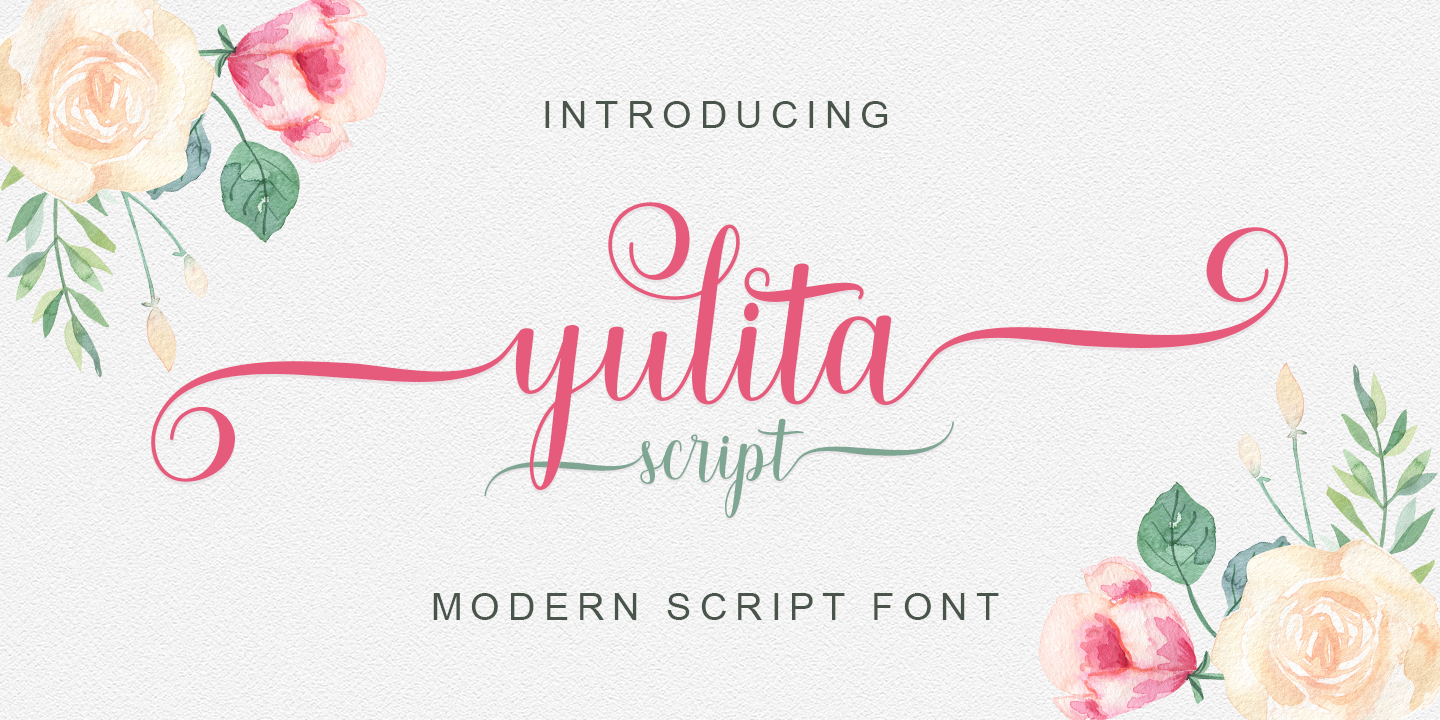
Yulita Script Font is ideal for wedding invitations, romantic greeting cards, elegant branding projects, luxury beauty campaigns, boutique fashion labels, sophisticated stationery design, feminine lifestyle marketing, delicate product packaging, calligraphy workshops, and enchanting creative applications. This graceful typeface excels in environments where elegance, romance, and feminine sophistication are essential for creating memorable emotional connections.
What makes Yulita Script Font exciting is its exquisite embodiment of feminine grace and romantic elegance through flowing script letterforms that capture the delicate beauty of hand-lettered calligraphy. The font features graceful curves, elegant flourishes, and sophisticated connecting strokes that convey refinement and timeless romantic appeal. This enchanting aesthetic makes it perfect for brands seeking to communicate femininity, elegance, and the intimate beauty of personal expression through typography.
Yulita Script Font family includes Regular, Bold, Light, Ornamental, Decorative, Flourished, Swash, and Elegant variants. Each style maintains the font's distinctive romantic character while offering different levels of decorative sophistication and feminine expression, enabling designers to create authentic script compositions that celebrate elegance and romantic beauty.
The Yulita Script Font Free Download provides designers with access to a premium script typeface that embodies the spirit of romantic elegance and feminine sophistication. This font's graceful aesthetic and delicate qualities make it particularly valuable for wedding professionals, beauty brands, and luxury organizations seeking to establish genuine connections with audiences who appreciate feminine beauty and romantic elegance.
Creative professionals appreciate the font's ability to instantly communicate romance, sophistication, and feminine charm. The letterforms' flowing characteristics and elegant details create emotional warmth that standard fonts cannot achieve, making it essential for projects requiring distinctive romantic personality and sophisticated feminine appeal.
When working with Yulita Script Font, designers can create compelling visual narratives that resonate with romantic audiences and elegance-conscious consumers. The font's graceful character makes it especially effective for brands in weddings, beauty, fashion, and luxury services where authentic romantic appeal and feminine sophistication are crucial for emotional connection.
For digital applications, Yulita Script Font maintains its distinctive script qualities across different platforms while ensuring readability in modern romantic contexts. Its optimized character spacing preserves the flowing elegance essential for authentic script appeal.
Design studios consistently select Yulita Script Font for projects requiring genuine romantic appeal and feminine authenticity, where conventional typography cannot capture the desired elegance and sophisticated beauty that defines contemporary romantic and feminine culture.